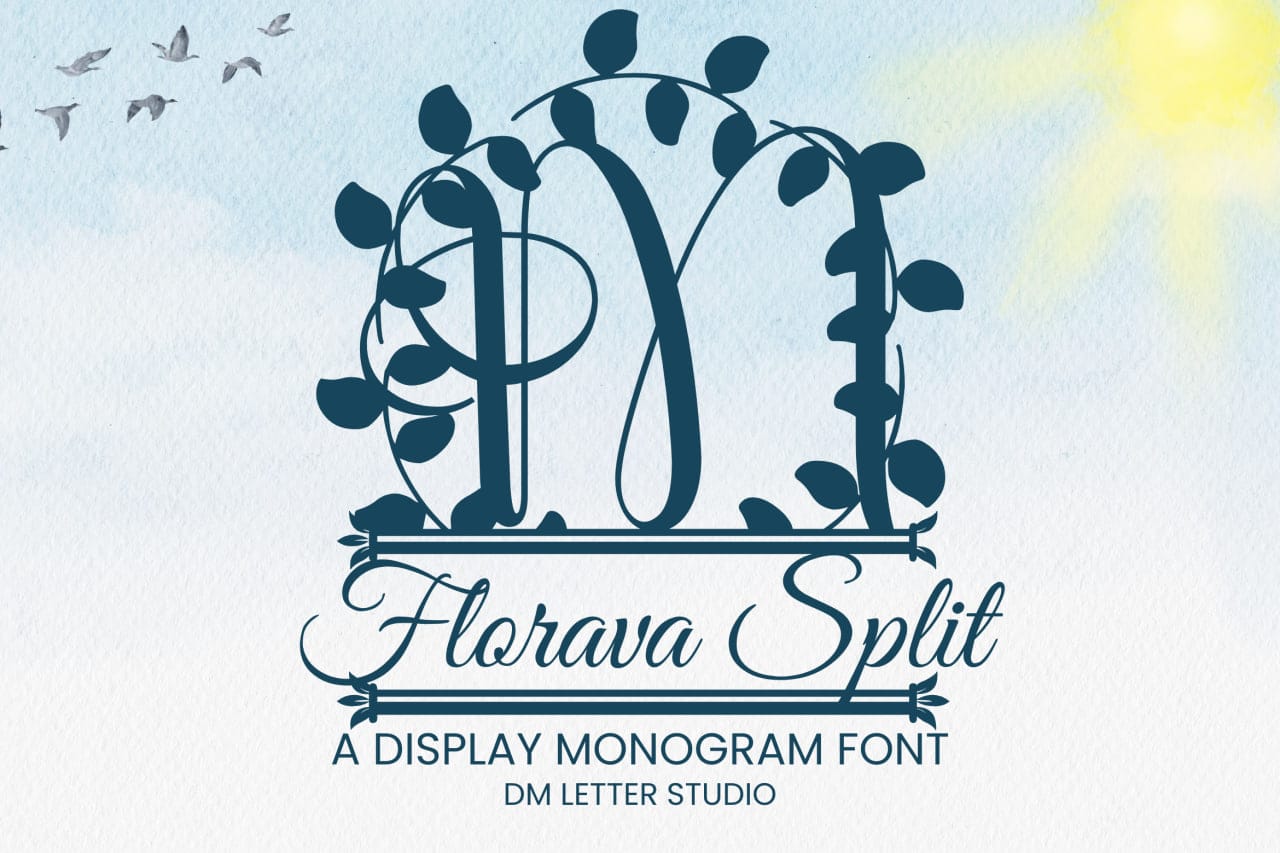
Meet Florava Split Monogram Font
Florava Split Monogram transforms initials into elegant floral emblems with a clean split center for names or dates. The design blends soft botanical curves with balanced structure, creating monograms that feel romantic, refined, and timeless. Each letter stays clear at any size, so small tags remain readable while larger designs look ceremonial and polished. Use Florava Split for wedding suites, anniversaries, boutique logos, stationery, keepsake gifts, and luxury packaging. As a result, your monograms feel personal, graceful, and thoughtfully styled.
Fast layouts with the Florava Split Monogram Font
Start with a bold initial and place the name or date in the split center. After that, keep extra text minimal so the floral form remains the focus. Because Florava Split holds its shape at small sizes, labels, stickers, cards, and favor tags stay clean and readable. In addition, it pairs beautifully with soft serifs, light scripts, or clean sans serifs for supporting text. Finally, save color palettes like blush and ivory, sage and cream, dusty rose and linen, or charcoal and soft gold to reuse across collections.
Creative uses and quick wins
• Wedding monograms, invitation covers, and ceremony signage
• Place cards, table numbers, and favor tags
• Logo seals, certificates, and boutique brand marks
• Packaging labels for candles, soap, perfume, and gift boxes
Design tips for Florava Split Monogram Font
Keep the monogram as the hero and use a separate font for any text outside the split area. Also, give it enough breathing room so fine floral details stay crisp at smaller sizes. For a premium finish, try foil stamping, embossing, or letterpress on thick or textured stock. Finally, export at 300 DPI for print and at 2× size for web so edges remain smooth everywhere.
Florava Split Monogram
Florava Split Monogram delivers refined floral initials with a split center for names or dates. Clean and print-ready.